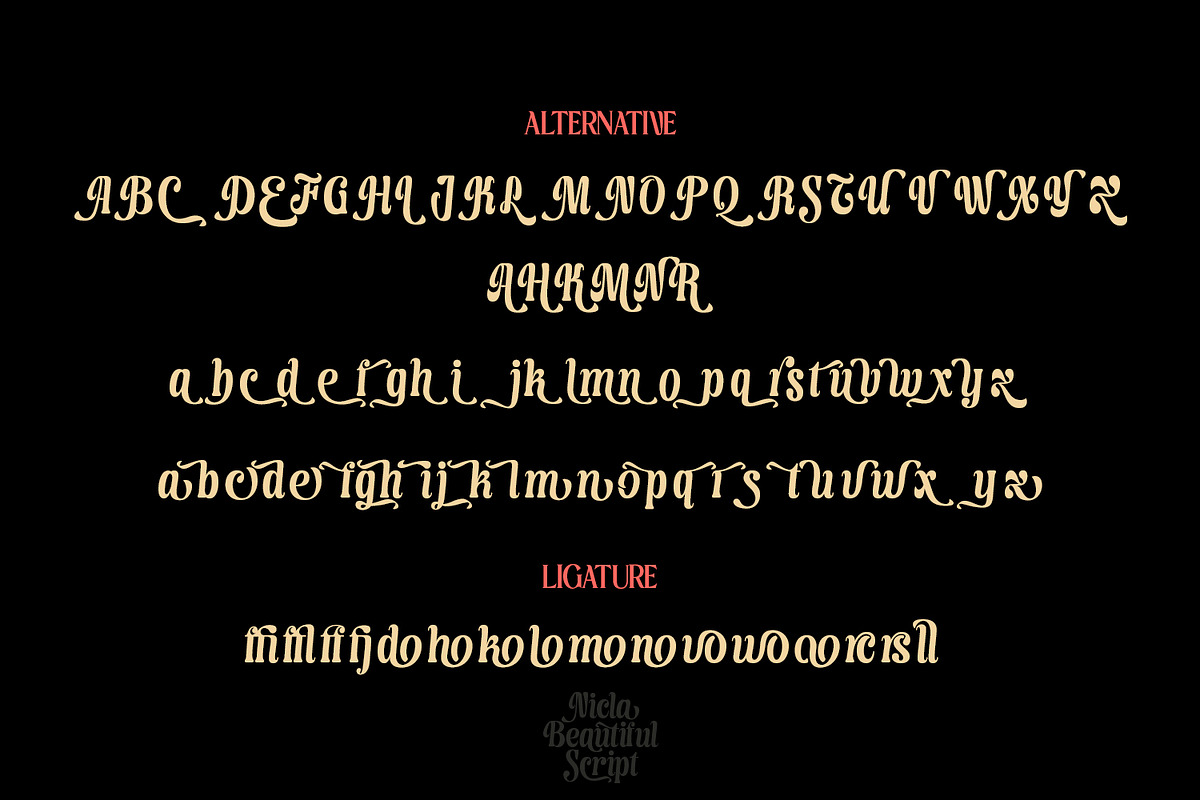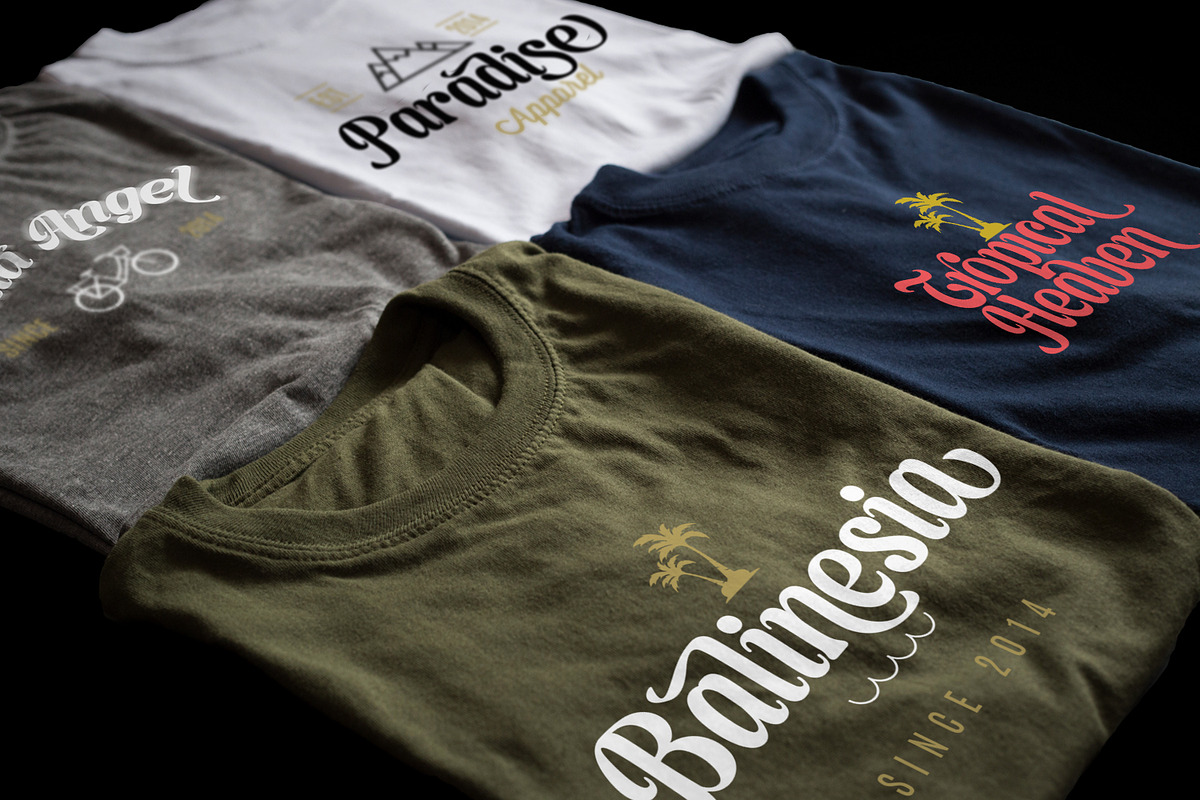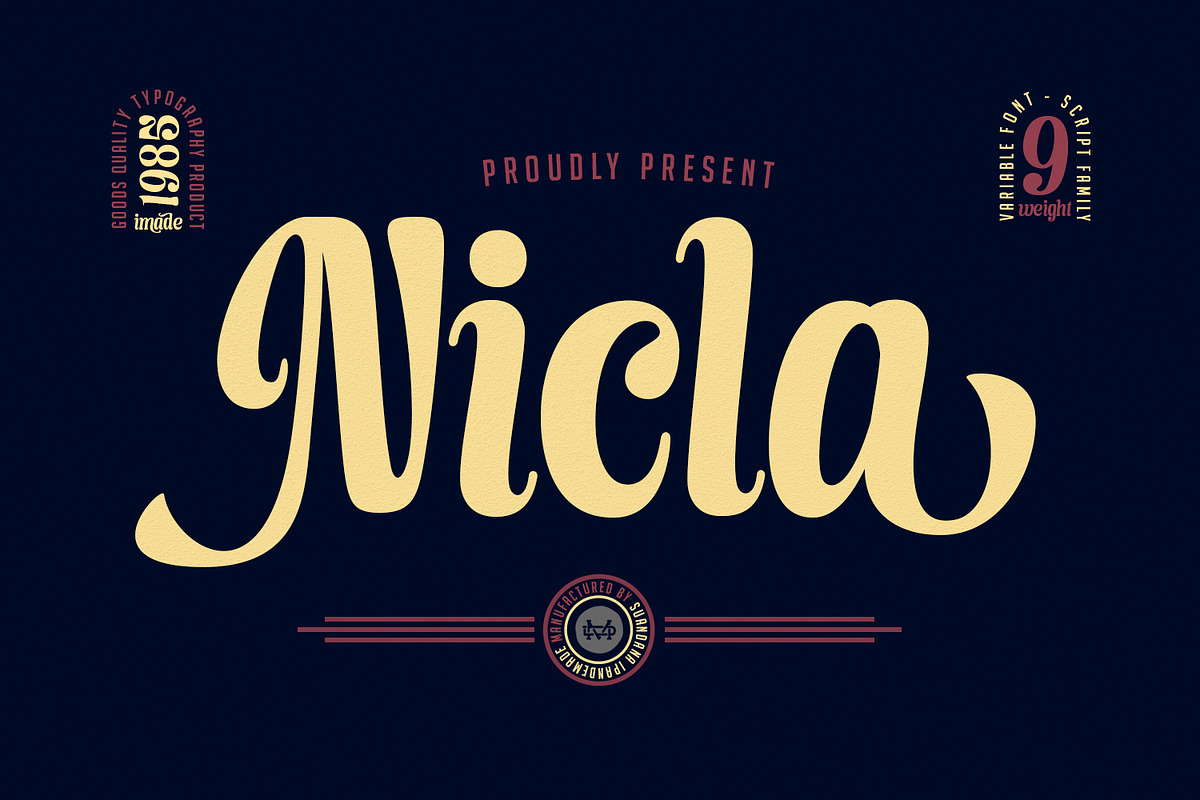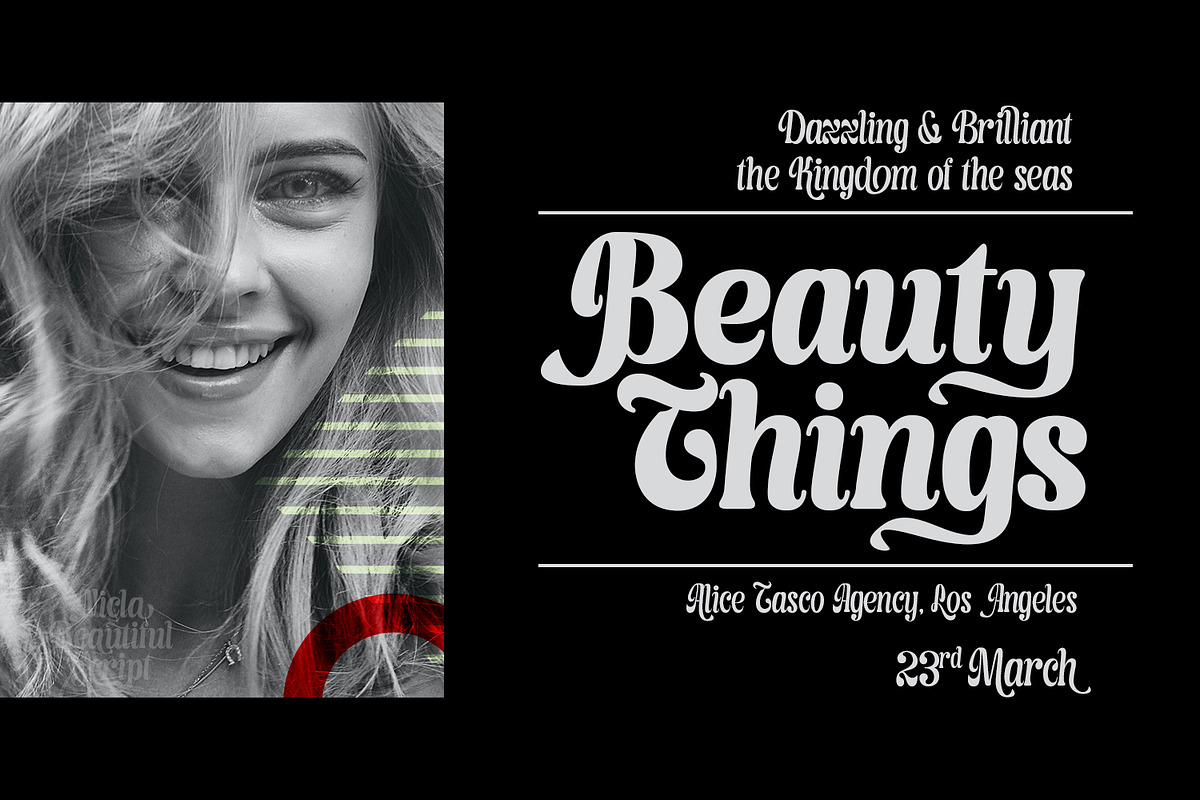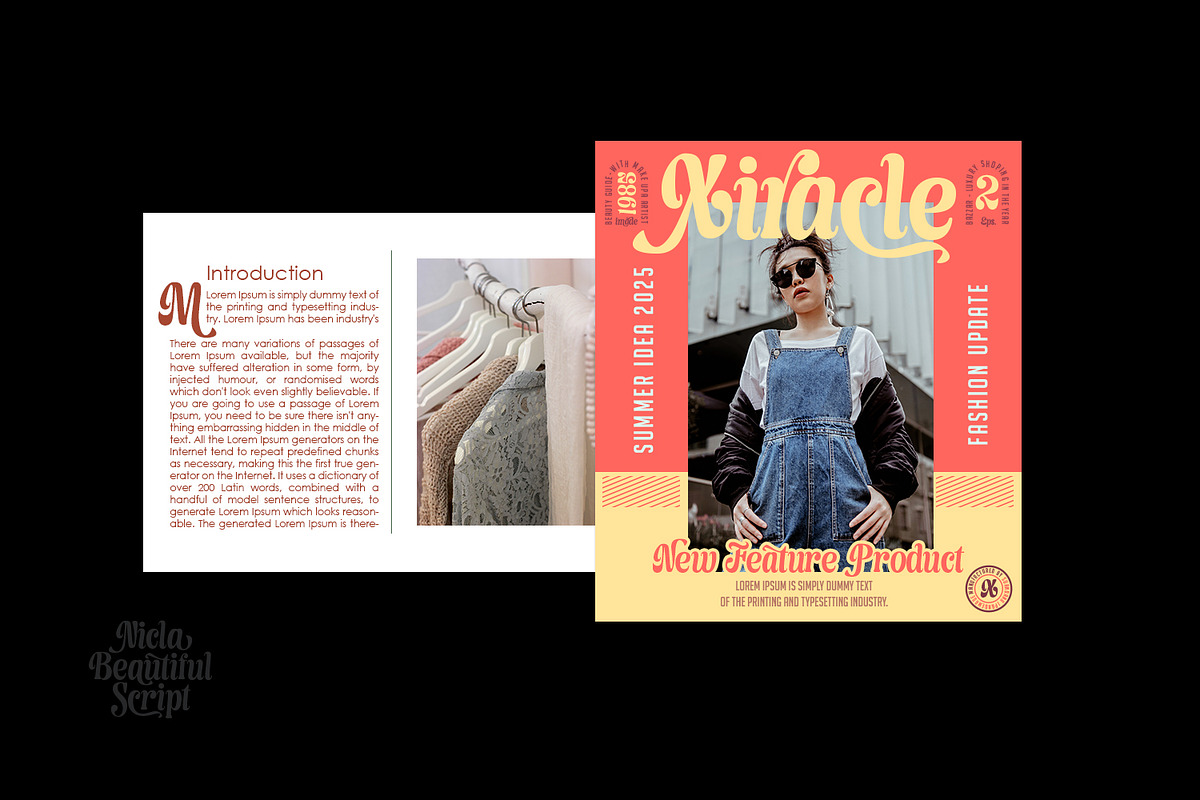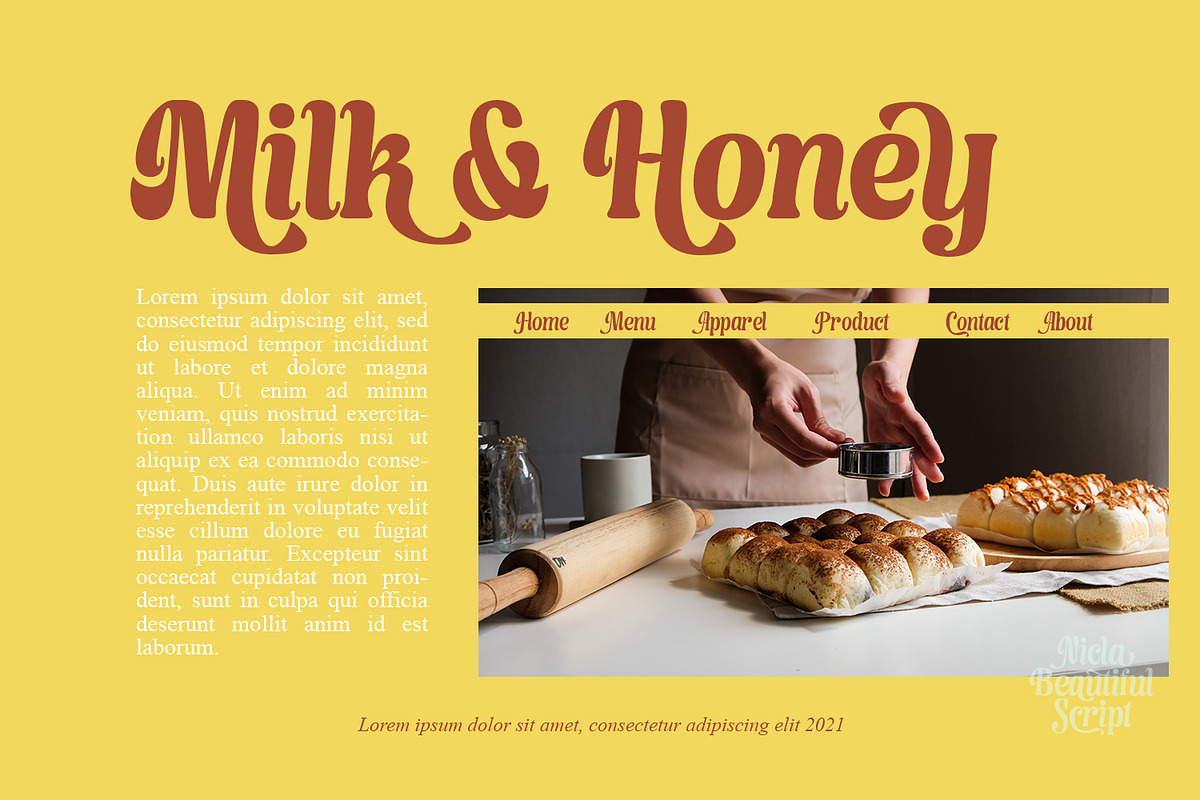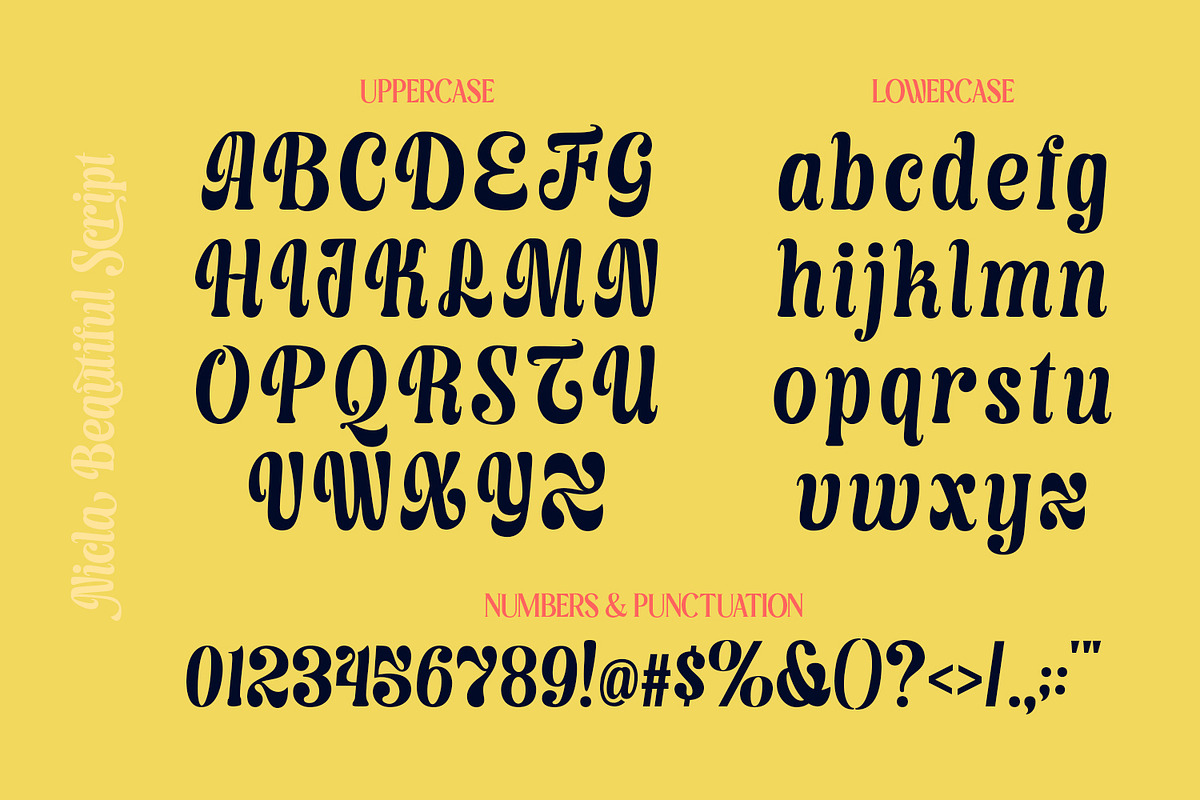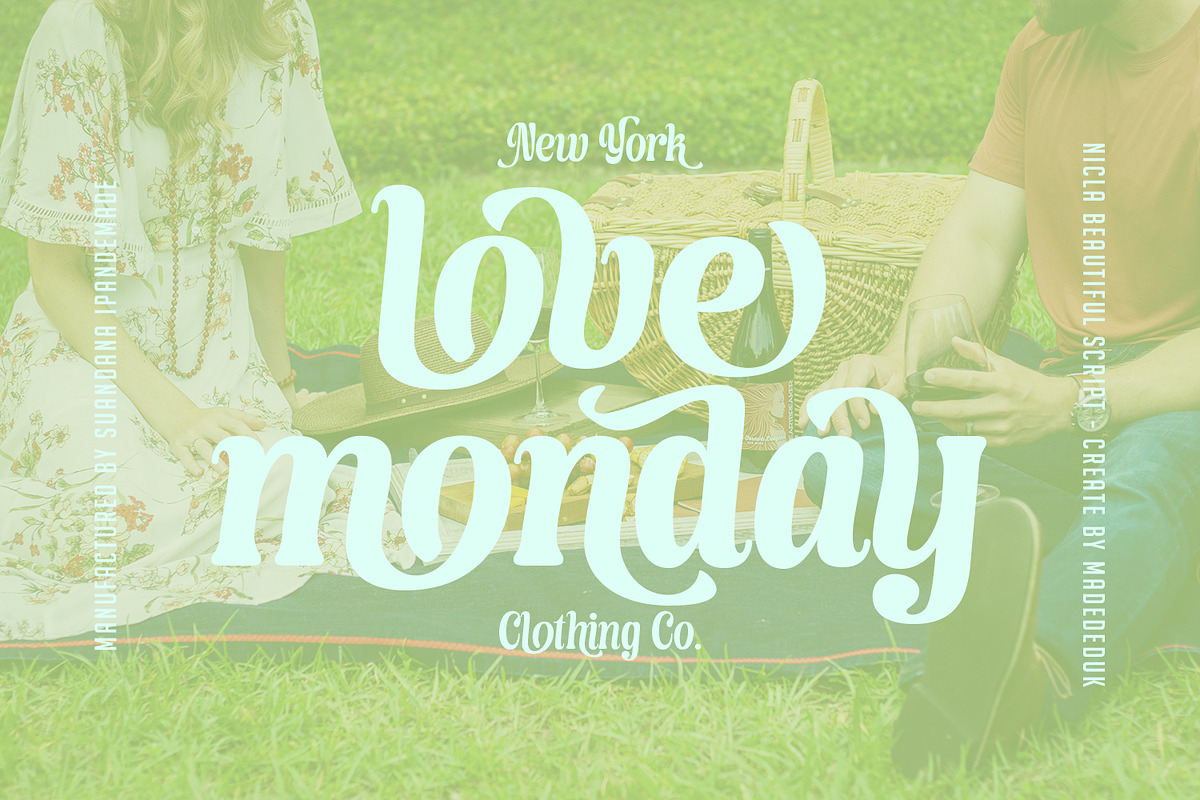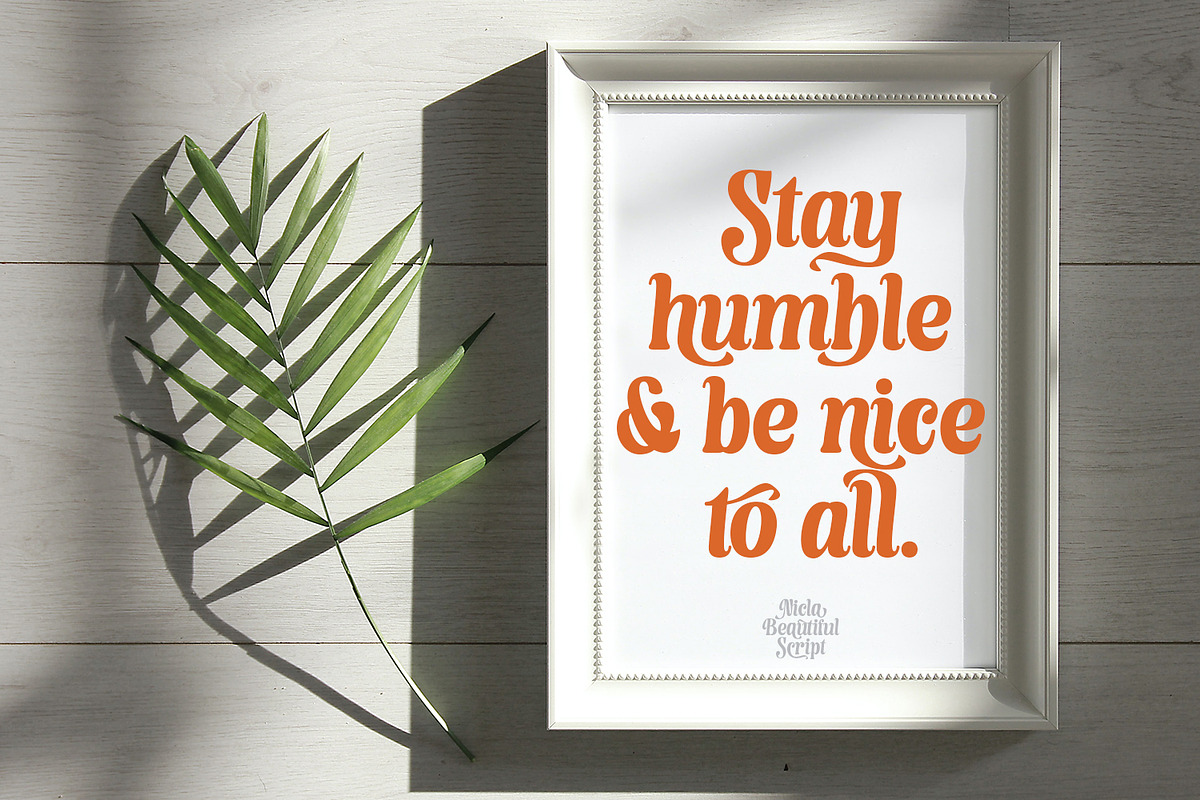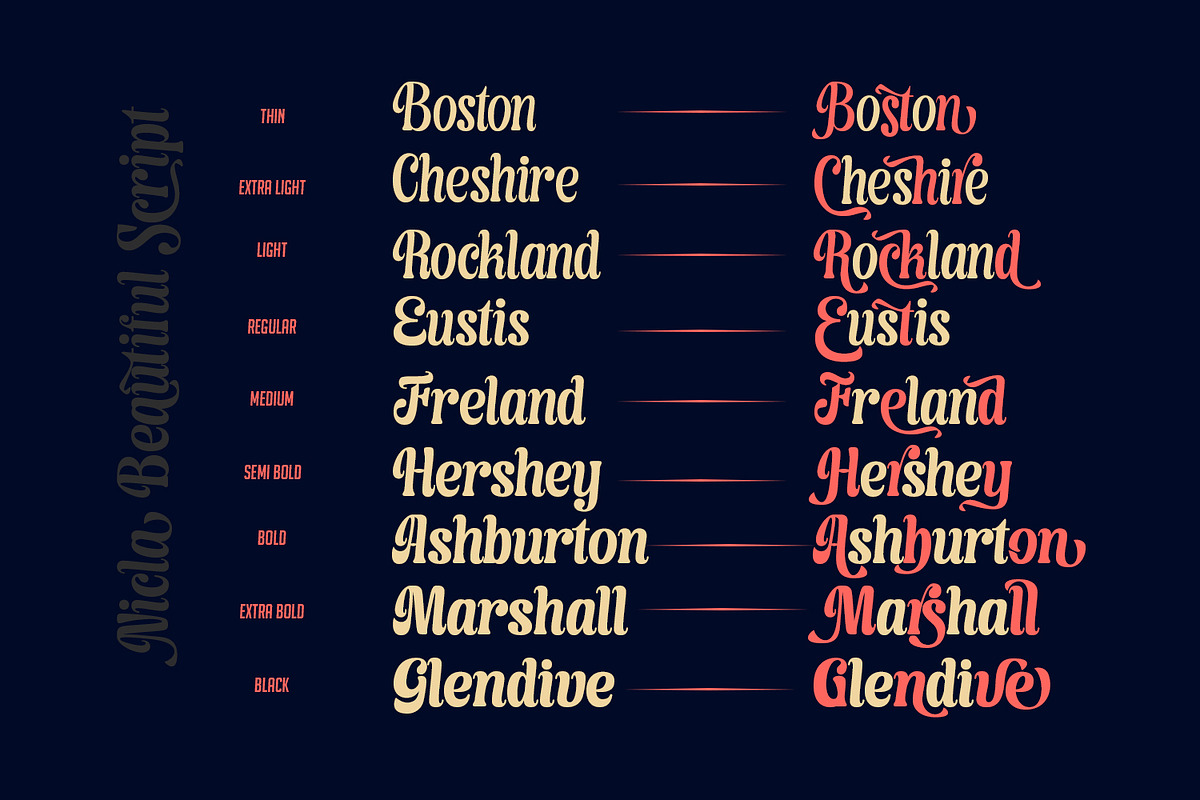
Nicla - Beautiful Script Family
Introducing Nicla is a brand new beautiful script family with beautiful ligatures, much special alternative glyphs to get more stunning and multilingual support. Use this beautiful font for all your designs project, event and more.
- Uppecase & Lowercase
- International Glyphs
- Alternative & Ligatures